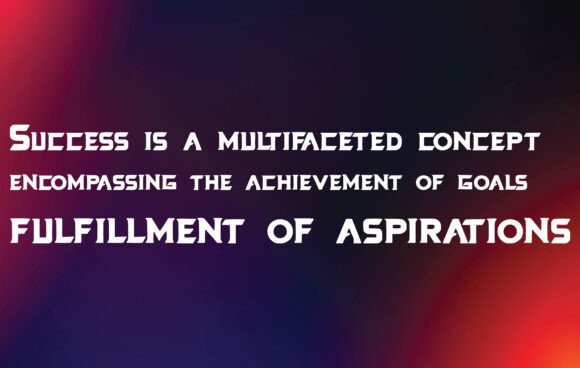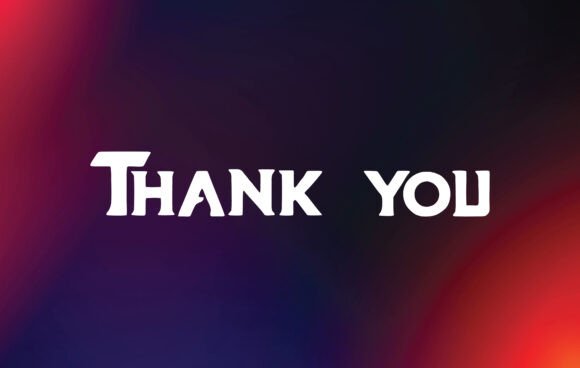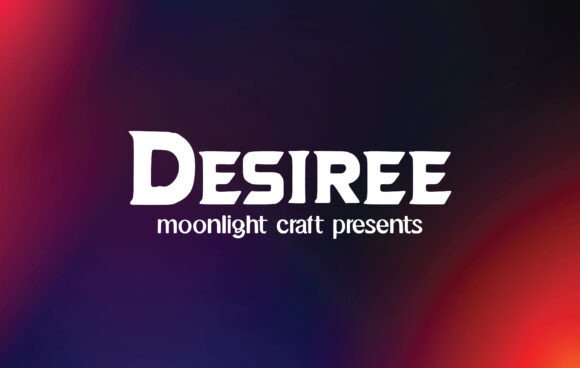
Unleash Your Creativity with Desiree Font: A Beautiful Choice for Designers and Crafters
Are you a designer or crafter looking for a font that can elevate your creative projects to new heights? Look no further than the stunning Desiree font. This lovely and beautiful font has the potential to take your ideas to the highest level, making it the perfect choice for creating eye-catching logos, branding, and quotes.
The Beauty of Desiree Font
Desiree font is a masterpiece of typography, boasting a unique and elegant design that is sure to captivate your audience. Its beautiful curves and lines make it a versatile font that can be used for a wide range of creative projects, from logos and branding to quotes and social media graphics.
One of the standout features of Desiree font is its ability to add a touch of sophistication and elegance to any design. Whether you’re creating a logo for a luxury brand or a quote for a social media post, this font is sure to make your project stand out from the crowd.
Why Choose Desiree Font?
So why choose Desiree font for your creative projects? Here are just a few reasons why this font is a top choice among designers and crafters:
- Elegant Design: Desiree font boasts a beautiful and elegant design that is sure to impress your audience.
- Versatility: This font can be used for a wide range of creative projects, from logos and branding to quotes and social media graphics.
- Easy to Read: Despite its elegant design, Desiree font is easy to read, making it perfect for use in quotes and other text-based designs.
- Unique: Desiree font is a unique and distinctive font that will help your designs stand out from the crowd.
Using Desiree Font for Logos and Branding
Desiree font is an excellent choice for creating logos and branding materials. Its elegant design and versatility make it perfect for use in a wide range of industries, from luxury brands to creative agencies.
When using Desiree font for logos and branding, consider the following tips:
- Keep it Simple: Use Desiree font in its simplest form to create a clean and elegant logo.
- Experiment with Colors: Desiree font looks great in a wide range of colors, so don’t be afraid to experiment and find the perfect color scheme for your brand.
- Use it Consistently: Use Desiree font consistently across all of your branding materials to create a cohesive and recognizable brand identity.
Using Desiree Font for Quotes and Social Media Graphics
Desiree font is also a great choice for creating quotes and social media graphics. Its elegant design and easy-to-read format make it perfect for use in inspirational quotes, motivational messages, and more.
When using Desiree font for quotes and social media graphics, consider the following tips:
- Keep it Short and Sweet: Use Desiree font to create short and sweet quotes that are easy to read and understand.
- Add Visual Interest: Use Desiree font in combination with images and other visual elements to create eye-catching social media graphics.
- Experiment with Fonts: Desiree font looks great when paired with other fonts, so don’t be afraid to experiment and find the perfect font combination for your design.
In conclusion, Desiree font is a beautiful and versatile font that is perfect for designers and crafters looking to elevate their creative projects to new heights. Its elegant design, versatility, and easy-to-read format make it a top choice for creating eye-catching logos, branding, and quotes.